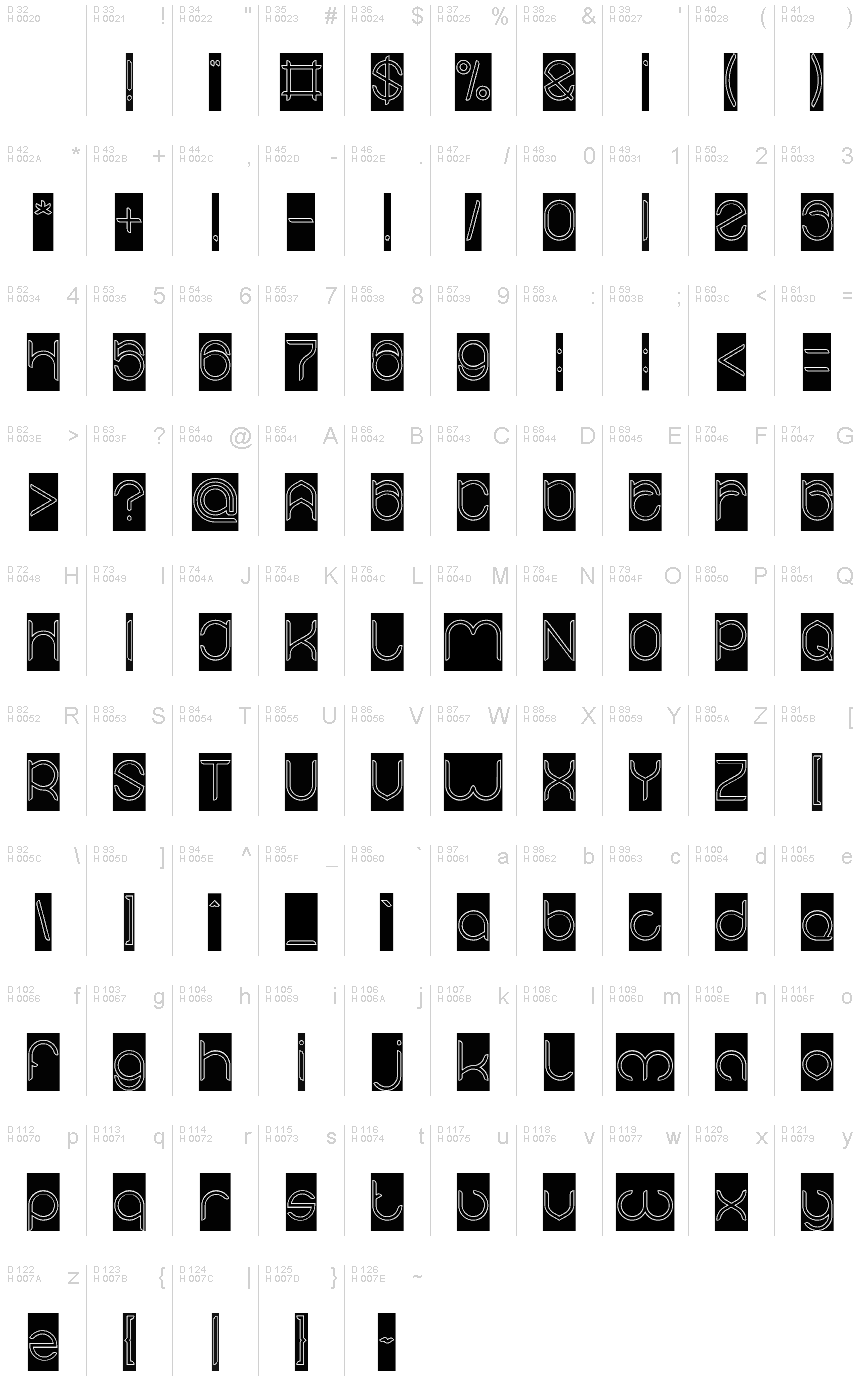
MICHELLE-Hollow-Inverse
Michelle Hollow Inverse is a captivating display font that exudes a striking, negative aesthetic. Designed by Weknow, this font boasts a distinctive hollow appearance, creating a bold and eye-catching visual impact. The clean, minimalist lines and inverted shading lend the typeface a contemporary, almost futuristic feel, making it an excellent choice for headlines, branding, and other high-impact design applications. With its versatility and unique character, "Michelle Hollow Inverse" is a versatile tool for designers seeking to create impactful, attention-grabbing typography.
The font's bold, inverted style lends itself well to a variety of design contexts, from editorial layouts and packaging to digital interfaces and advertising campaigns. Its clean, geometric forms and striking negative space make it a compelling option for designers looking to create a sense of modernity and visual intrigue.